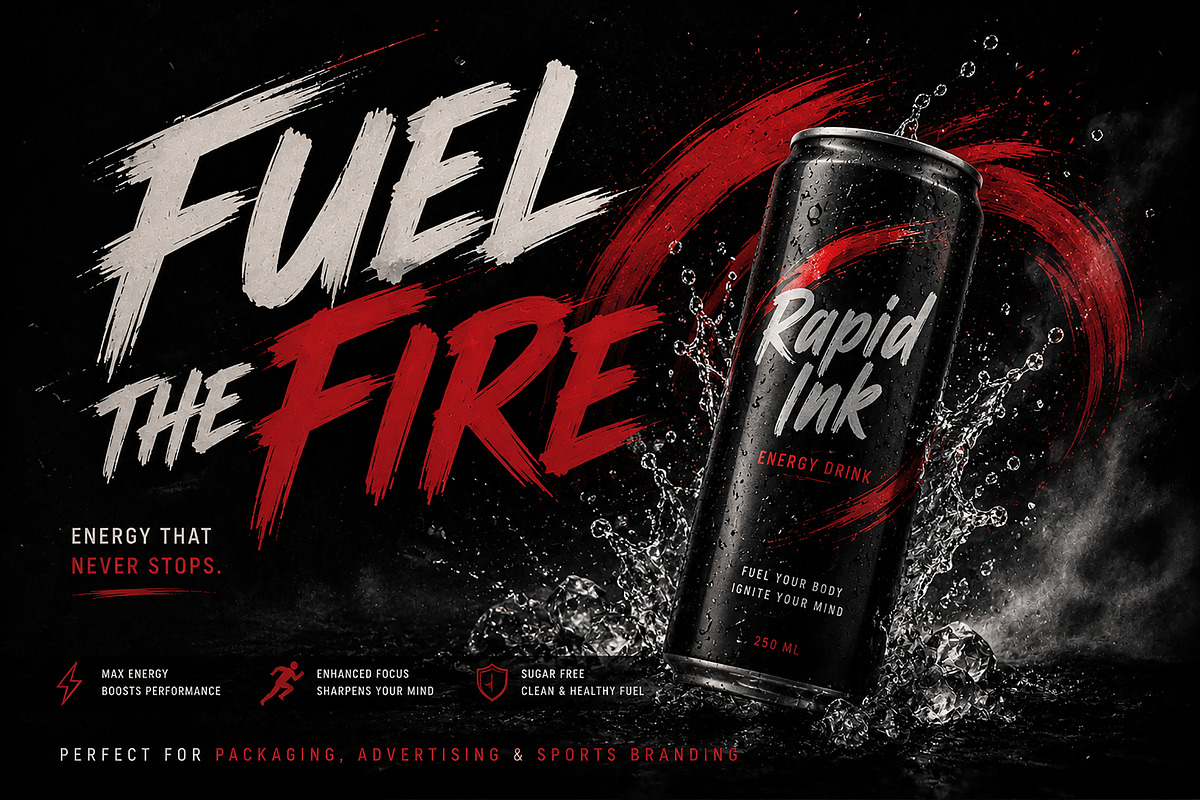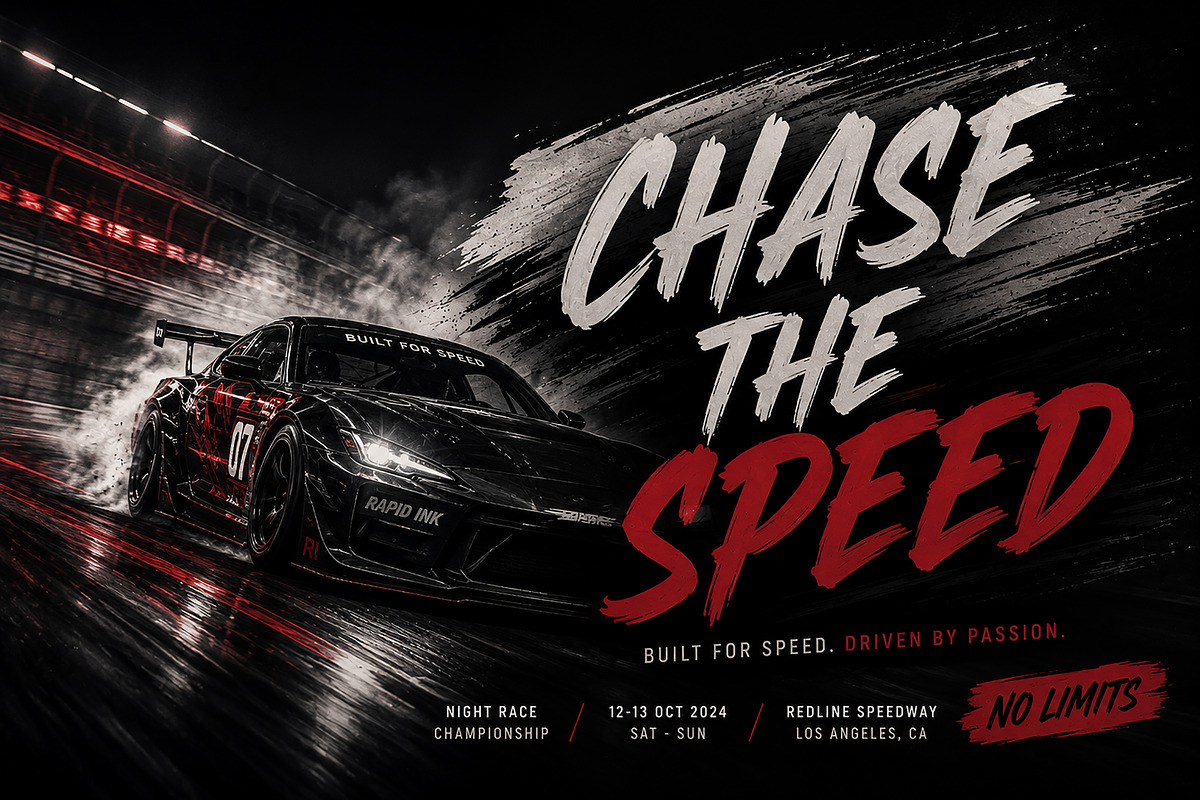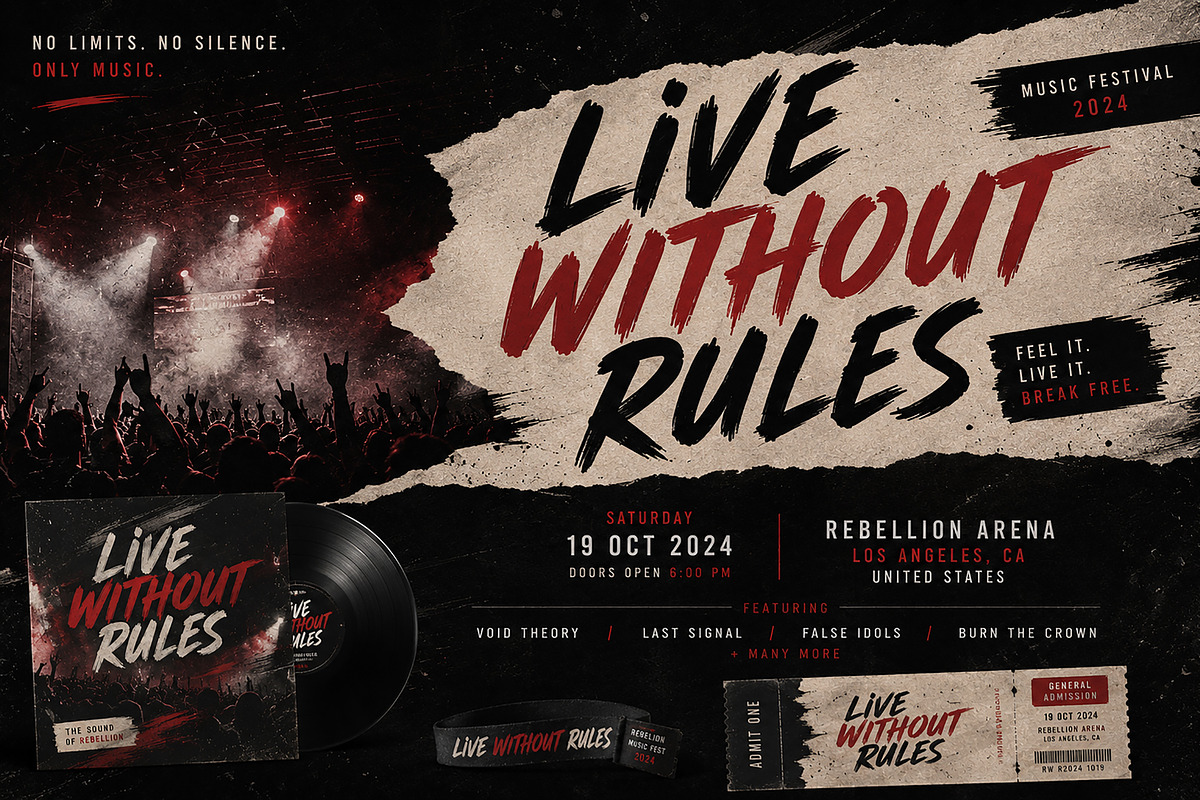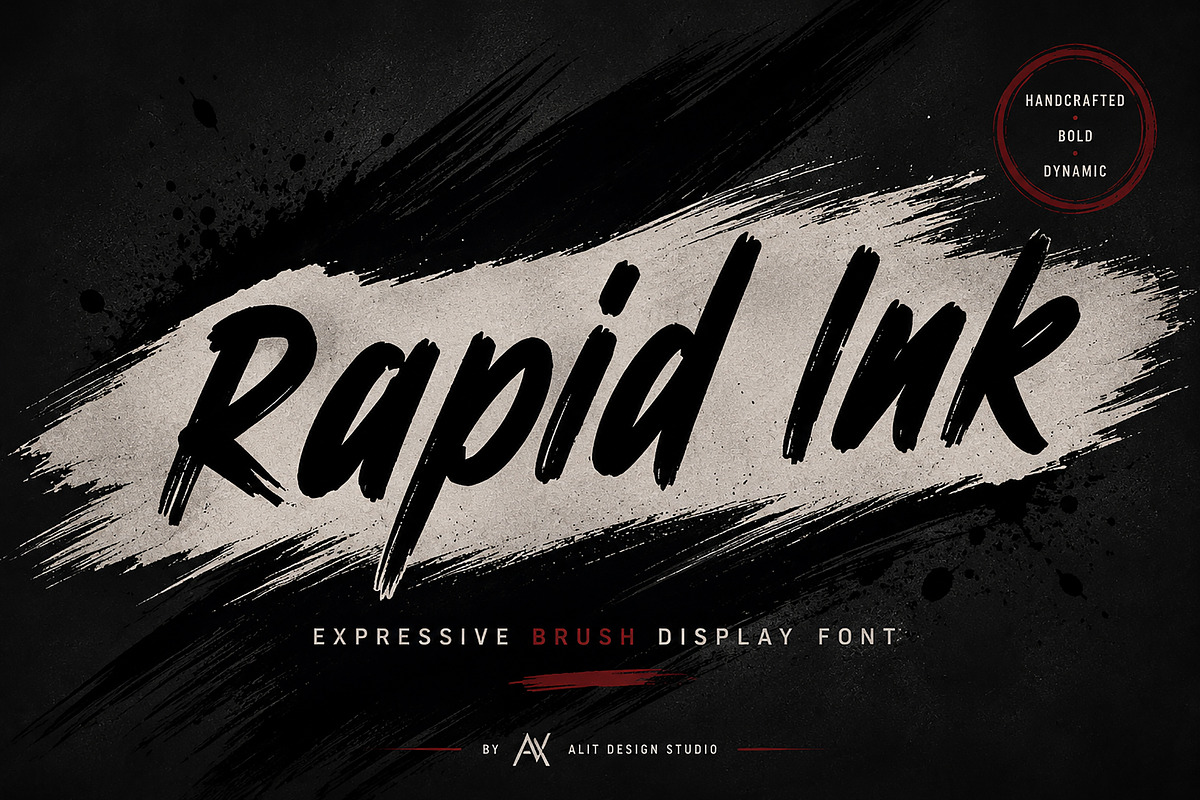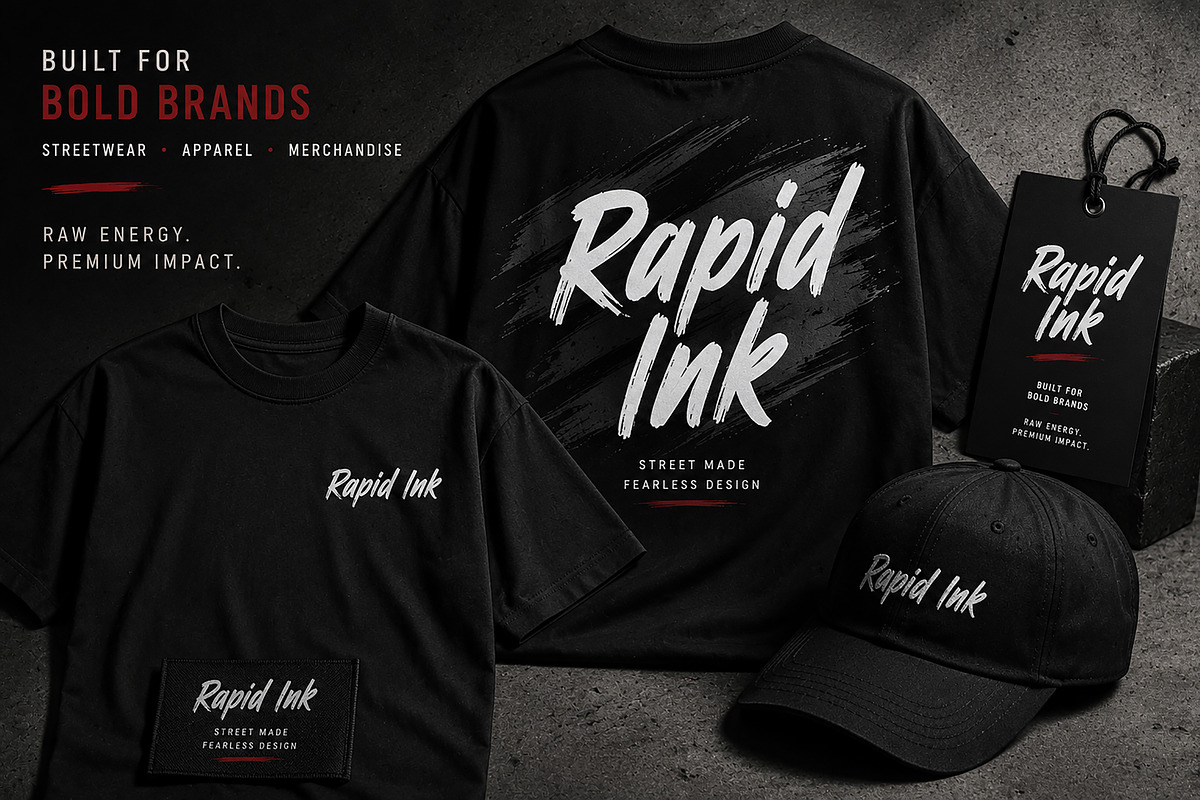
Rapid Ink
Rapid Ink – Bold Brush Display Font
Rapid Ink is a handcrafted bold brush display font designed to bring raw energy, speed, and personality to your creative projects. Featuring authentic brush strokes, natural texture, and expressive letterforms, this font delivers a modern handcrafted look that's perfect for eye-catching headlines and impactful branding.
Whether you're creating streetwear graphics, sports branding, music posters, packaging, advertising campaigns, or social media content, Rapid Ink adds a fearless and dynamic touch that instantly grabs attention.
Designed for creatives who want bold typography with authentic brush character.
Streetwear Branding
Sports & Racing Designs
Music Festival Posters
Album Covers
Apparel & Merchandise
Energy Drink Branding
YouTube Thumbnails
Gaming Graphics
Social Media Posts
Advertising Campaigns
Poster Design
Event Promotion
Quote Designs
Creative Headlines
Lifestyle Branding
Modern Brush Typography
Handcrafted Brush Style
Bold & Expressive Design
Authentic Brush Texture
Uppercase & Lowercase Letters
Standard English Characters